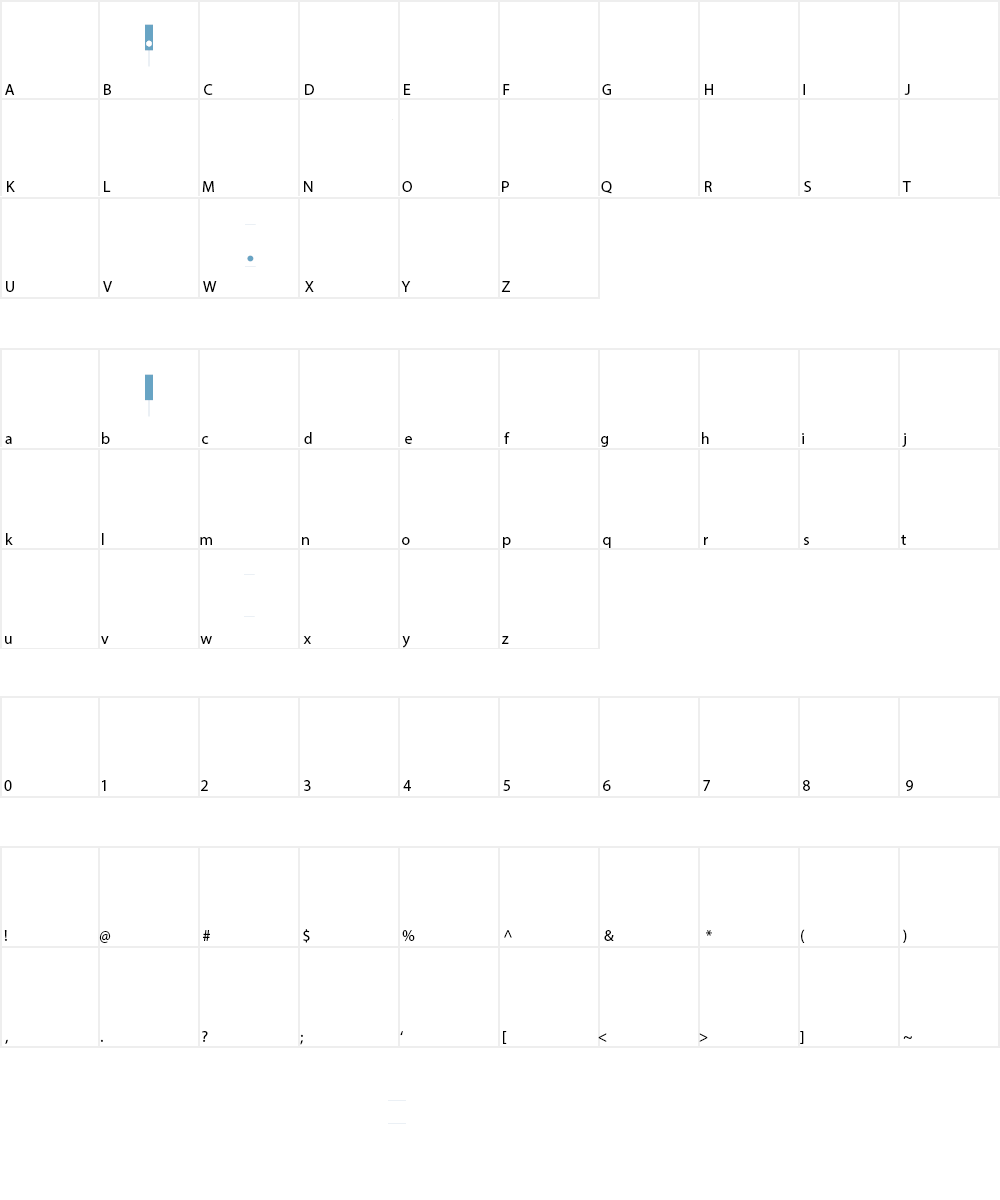
This is a very simple music font to create custom chord diagrams for keyboards. Use 'w' for white keys and 'b' for black keys. Use 'W' or 'B' to add dots to the keys. Use '|' to separate two white keys next to each other or to start/end the chord diagram.